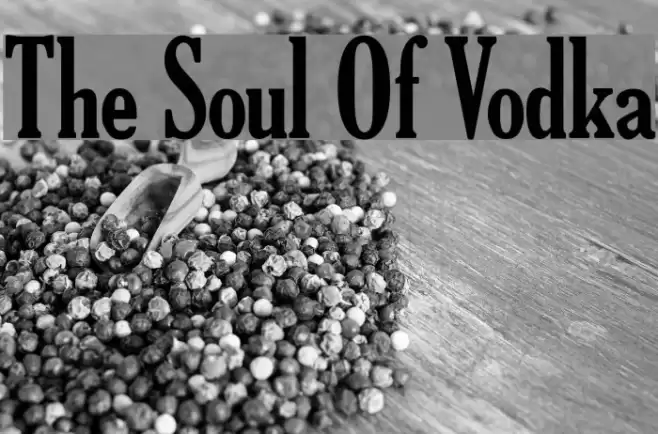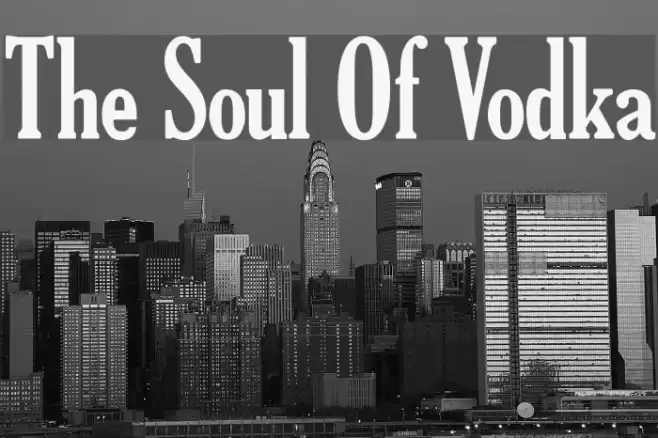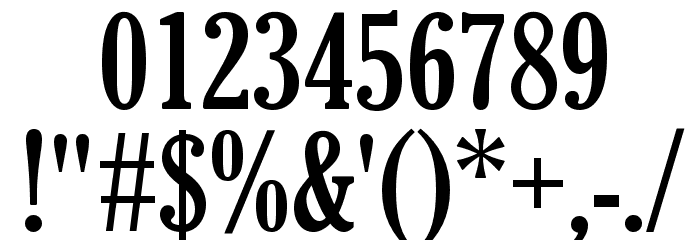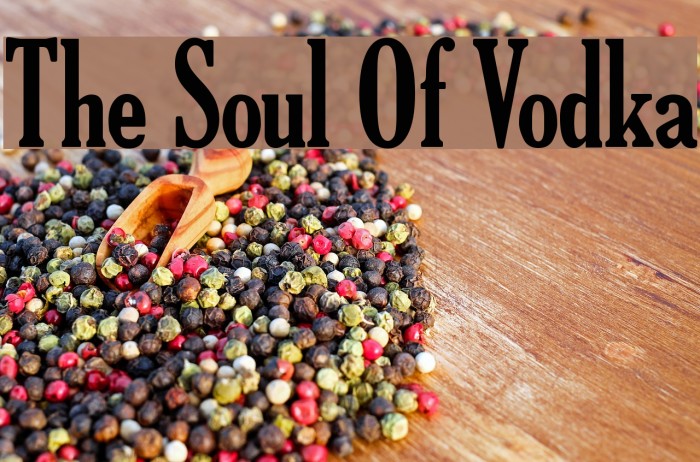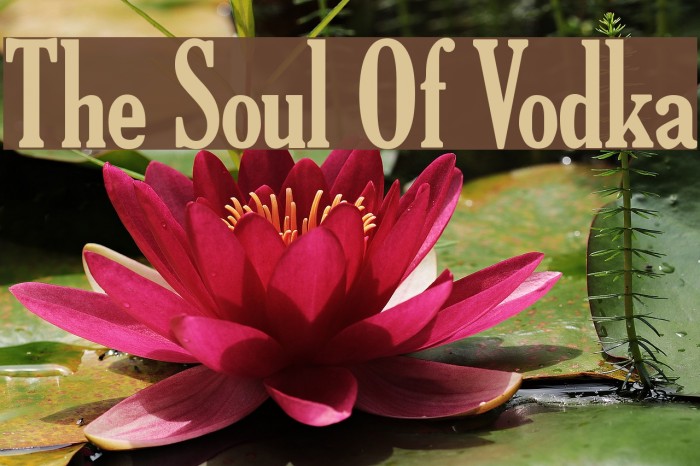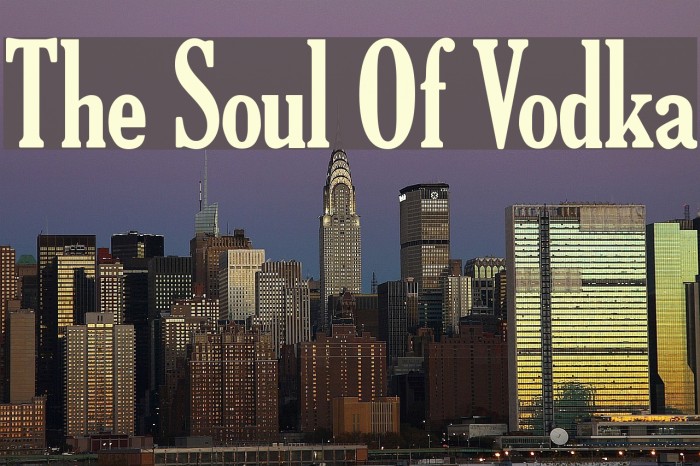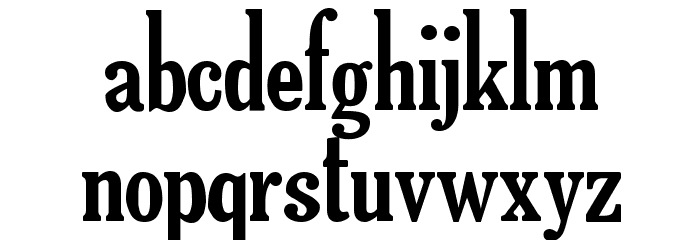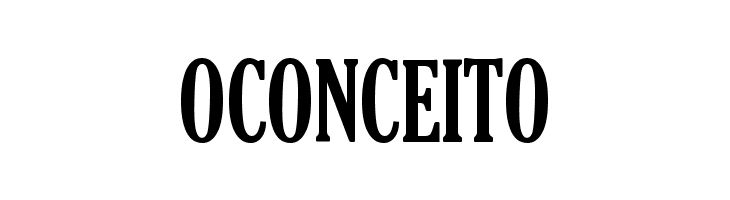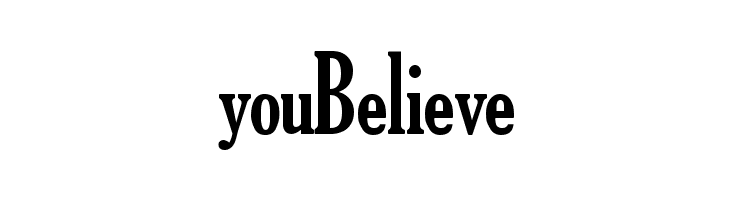
The Soul Of Vodka Font
The Soul Of Vodka Description
This font exudes a bold and classic presence with its strong serif features and high contrast between thick and thin strokes. The uppercase letters are tall and commanding, while the lowercase letters maintain a consistent style with slightly rounded edges, giving a touch of elegance. The numerals are well-proportioned, matching the overall aesthetic of the font. Special characters are crafted with attention to detail, ensuring they blend seamlessly with the rest of the typeface. This font is designed to make a statement, combining traditional serif elements with a modern twist, making it versatile for various design needs.
A bold, classic serif font with high contrast and elegant curves from Uncategorized fonts.
- Proposed Projects: Ideal for branding, editorial design, book covers, and high-impact headlines.
- Overall Style: Classic
- Use Case: Headlines, Logos, Editorial Design